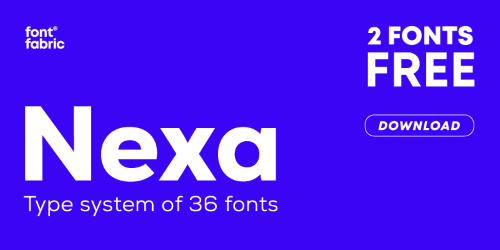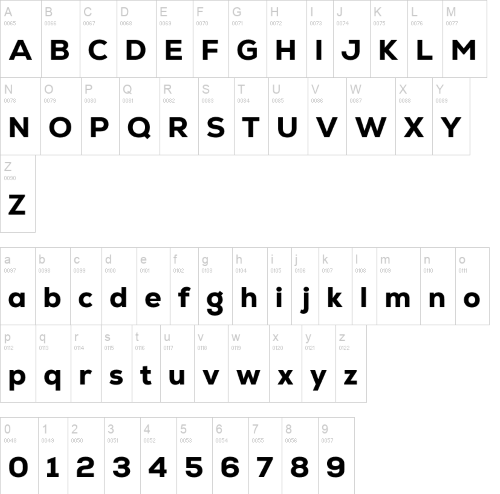
Nexa Font
Nexa Font is a clean, modern sans-serif typeface known for its strong geometry and smooth, balanced letterforms. Its professional yet approachable style makes it ideal for branding, headlines, packaging, and digital interfaces. With excellent readability and a contemporary feel, Nexa brings clarity, precision, and polished elegance to any design project.
➤ Font Name: Nexa
➤ Designer: Fontfabric
➤ Style: Sans serif